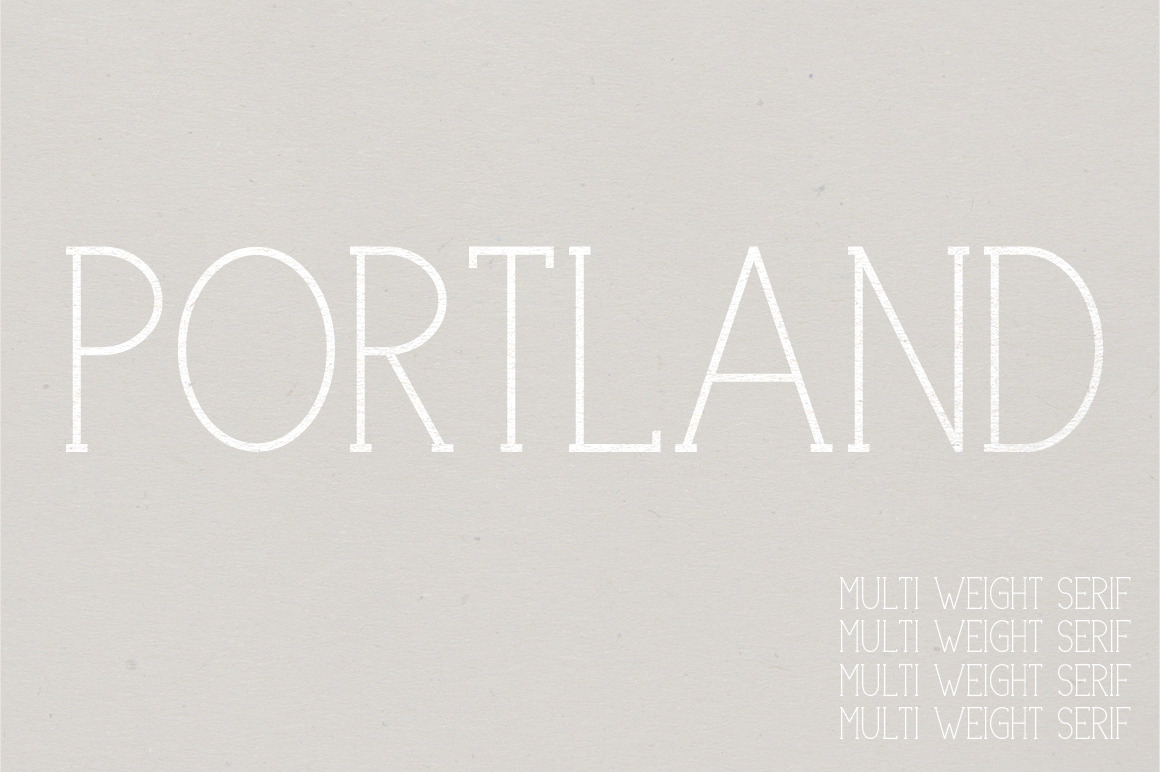
Portland Serif, a variant of the now-trending Portland, is a beautiful option for the all caps layout that's currently trending! This font is even perfect for autumn and holiday seasons coming up.